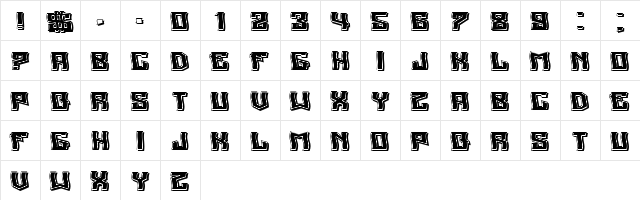
Murmure Regular Free Font
Murmure Regular
Design Context for Murmure
Murmure is a composed and adaptable typeface that performs quietly and consistently across a wide range of design contexts.